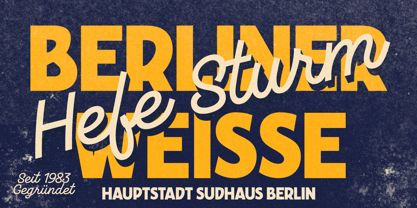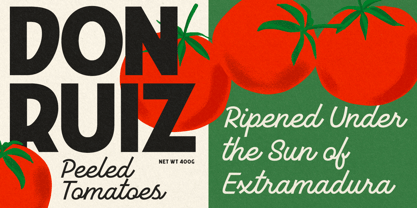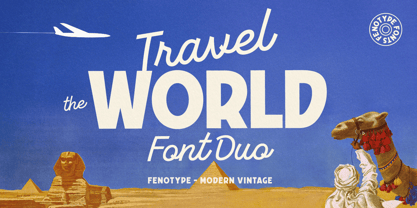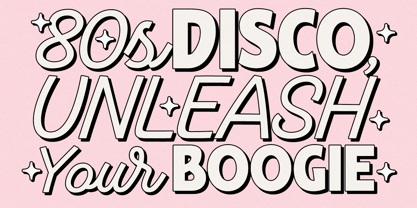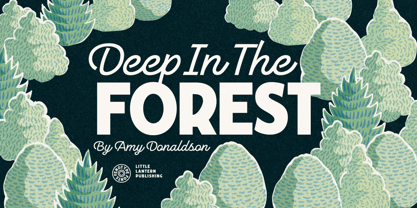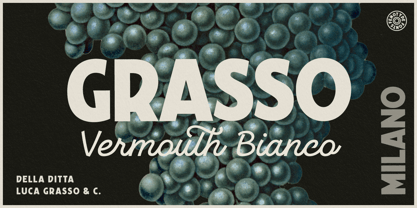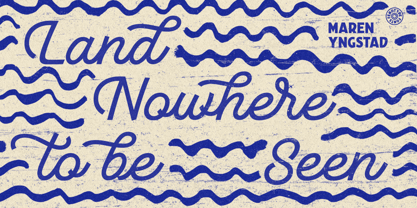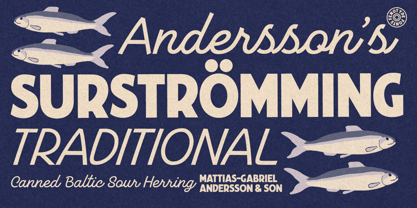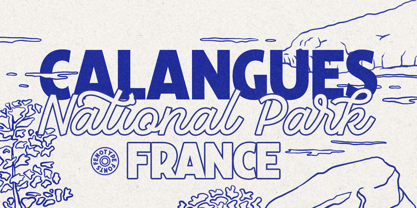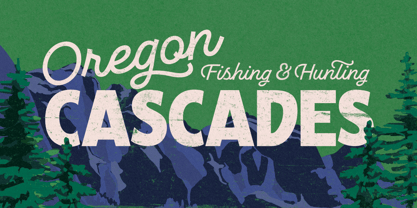
Travel The World
Inspired by the typography of 20th-century travel posters, Travel The World is a font duo featuring a low-contrast script with a large x-height and a chunky, vernacular sans with a hint of Art Nouveau—designed to complement each other.
In the Script style, uppercase letters are designed as decorative initials. For all-caps text, use the Small Caps feature. Additionally, the Script includes several OpenType features such as Swash, Stylistic, and Titling Alternates.
Travel The World is a versatile choice for display use, from posters to packaging and from brand identities to book covers. Both styles work beautifully on their own, and thanks to their relatively simple feature set, they also pair effortlessly with other typefaces.